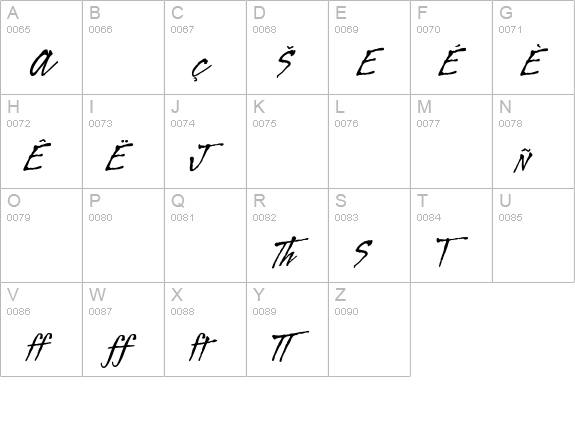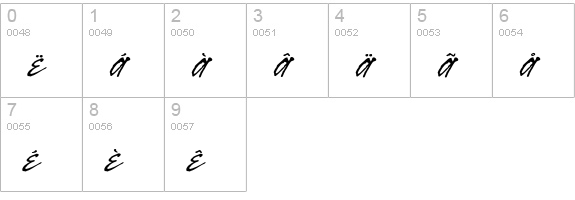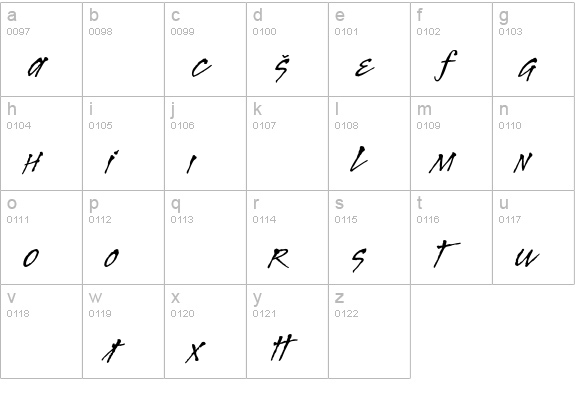
Legault Alternates is a stunning and versatile font that will add a touch of elegance to any design project. With its unique and intricate letterforms, this font is perfect for creating eye-catching headlines, logos, and branding materials. The beauty of Legault Alternates lies in its free-flowing curves and graceful lines, which create a sense of movement and sophistication. Each letter has been meticulously crafted to ensure a harmonious balance between legibility and artistic expression. This font offers a wide range of alternates, allowing you to customize and personalize your designs to perfection. Whether you want to add a decorative flourish or create a more modern look, Legault Alternates has the versatility to meet your creative needs. One of the best things about Legault Alternates is that it is completely free to download at FontsMarket.com. This means that you can enjoy the beauty and functionality of this font without having to spend a dime. With just a few clicks, you can bring your designs to life with this fantastic typeface. So why wait? Download Legault Alternates today and unlock a world of possibilities for your design projects. Whether you're a professional designer or just starting out, this font will elevate your work to new heights. Embrace the freedom and creativity that Legault Alternates offers, and watch your designs come to life.